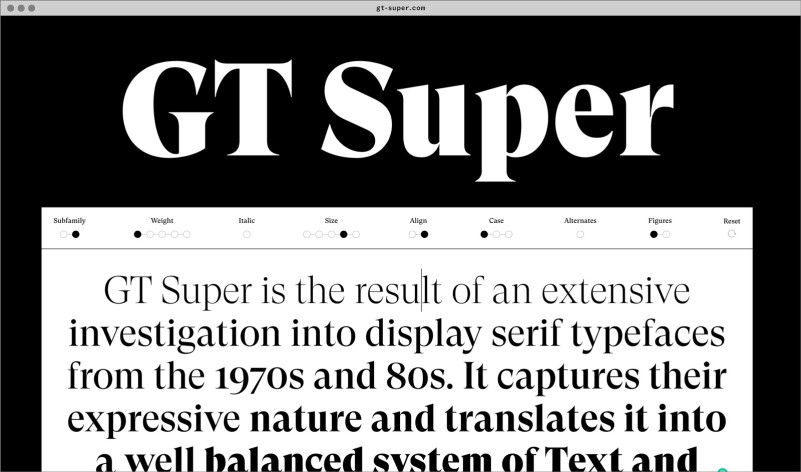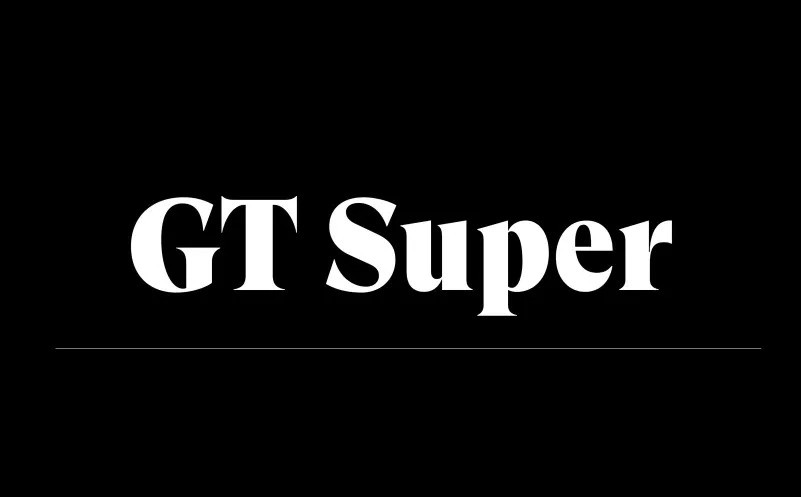
GT Super Font
GT Super Serif Font Family, is the result of an extensive investigation into display serif typefaces from the 1970s and 80s. It focuses on the expressive and idiosyncratic nature of calligraphic motions, compelled into stable, typographic shapes.
This font is the perfect way to add style and flair to your designs! The unique, sophisticated shapes and amazing mix of shapes in this font will automatically add a touch of class and sophistication. ideal for use in greeting cards, posters, product packaging, or just to add a little flair to your designs. Its simplicity will make it easy to read and you can use it anywhere you like. Grab your copy now and start making the most of it today!